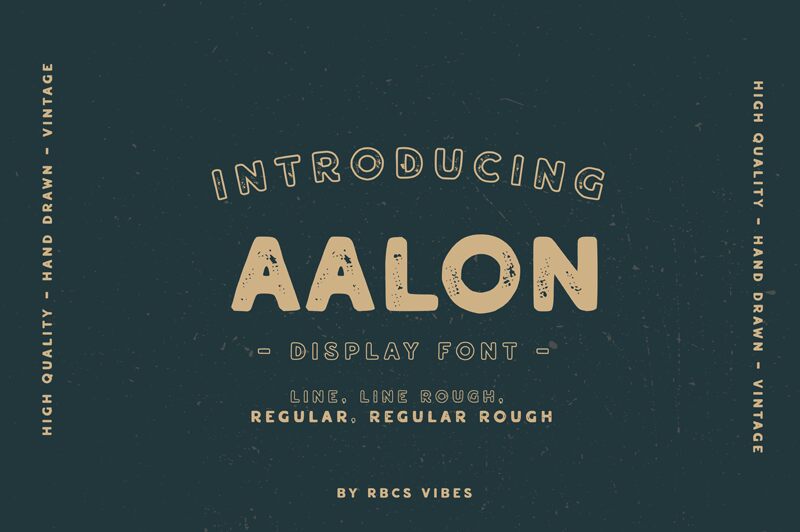
Aalon Rough
Aalon Rough font is a rugged display font by RBCS Studio with a worn vintage feel. Slightly eroded, the high-impact bold characters are suitable for casual typography designs. Aalon comes in several styles, opening up additional unique design possibilities.
This free font can expand the beauty of headings in print magazines, advertisements, video game interfaces, and banners. The textured style is especially compatible with branding where it can be used in logo designs and slogans. Social media images and their covers are other ideas for use along with event pamphlets and wristbands as well as packaging for promoted products.